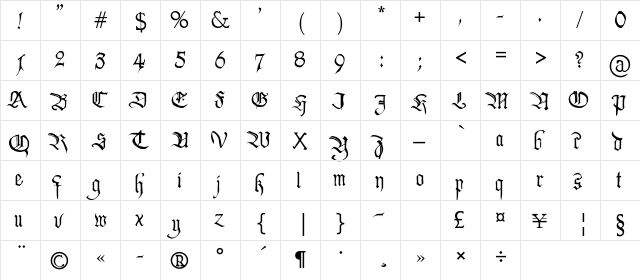
Oil of Boil Regular
Design Context for Oil of Boil Typeface
Oil of Boil is a composed and adaptable typeface that performs quietly and consistently across a wide range of design contexts.